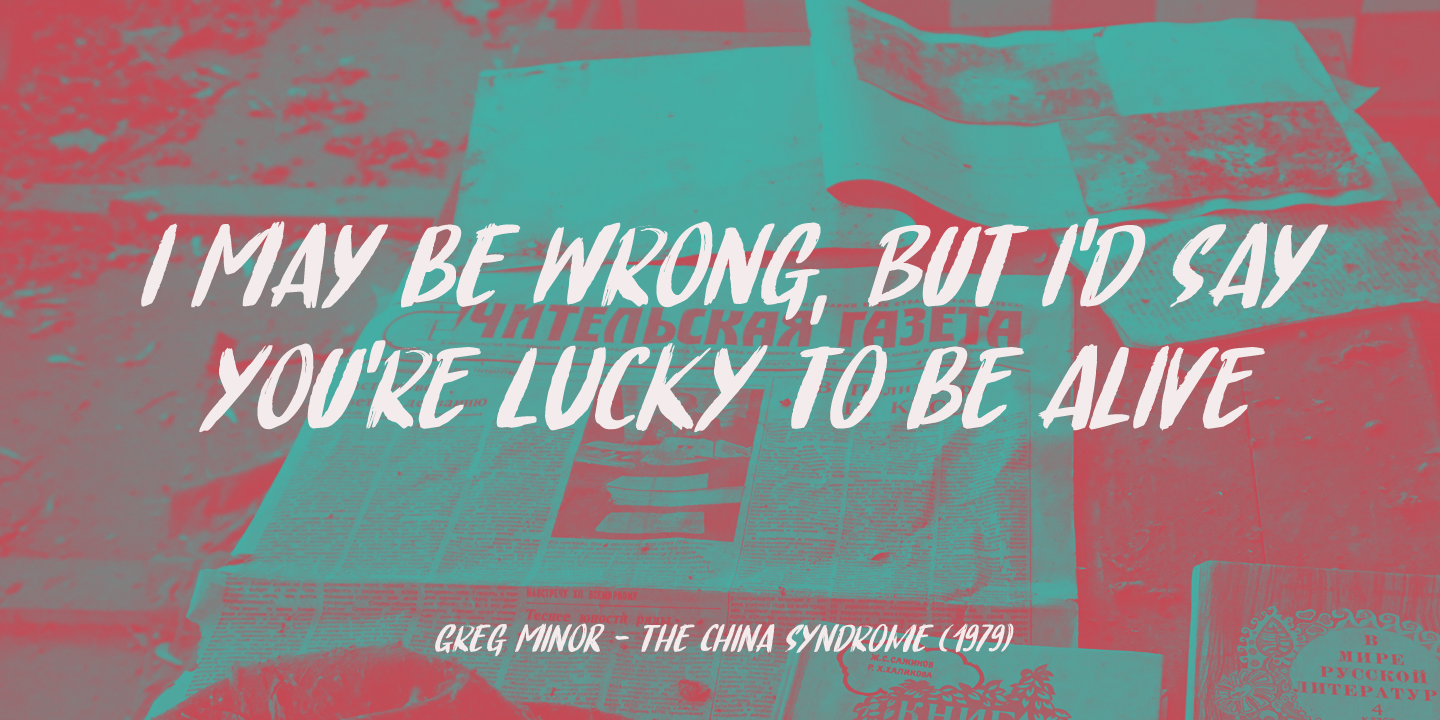
China Syndrome Font Free Download is a bold and futuristic display typeface that commands attention with its sharp, angular letterforms. Perfect for posters, album covers, video game titles, branding, and sci-fi themed projects, this font delivers a striking, edgy aesthetic that stands out in any creative application. Its unique design adds a powerful, modern vibe to headlines and logos alike.
With China Syndrome Font Free Download, you’ll receive a full set of uppercase letters, numbers, and essential punctuation, making it versatile for both print and digital designs. Whether you’re crafting promotional materials, merchandise, or social media graphics, this font ensures high visual impact while maintaining readability. Its futuristic style makes it ideal for projects looking to push creative boundaries.
Take your creative projects to the next level with China Syndrome Font Free Download. Its bold, modern design is perfect for making a strong statement, helping your visuals grab attention and leave a memorable impression.